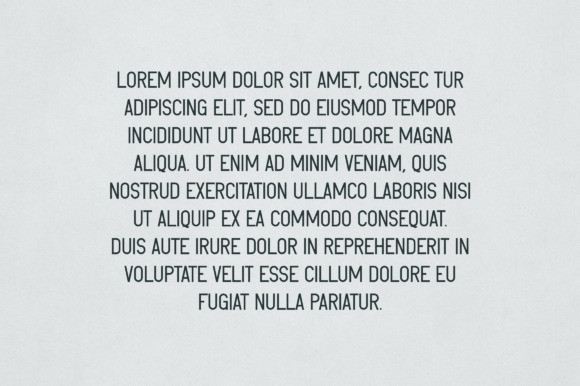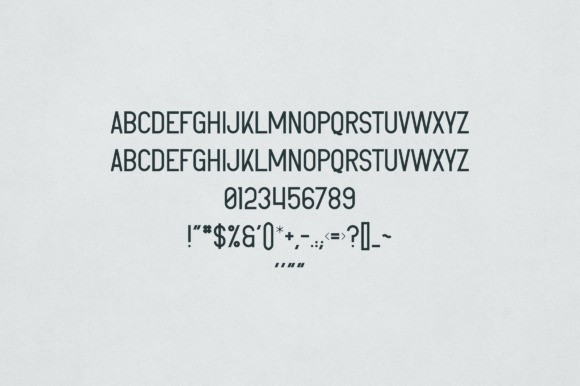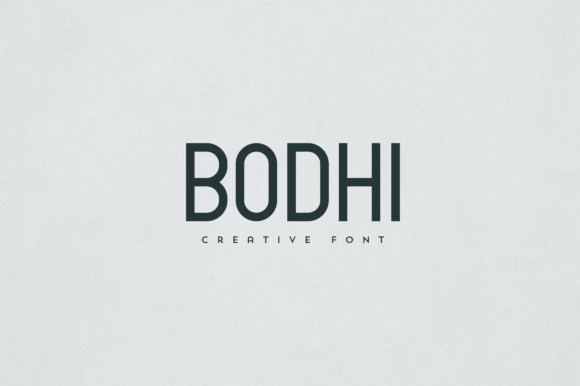
Bodhi Font
Bodhi Font is an elegant and versatile display font that will make your typography truly unique! It will enchant every logo, branding, headline, or plain text!